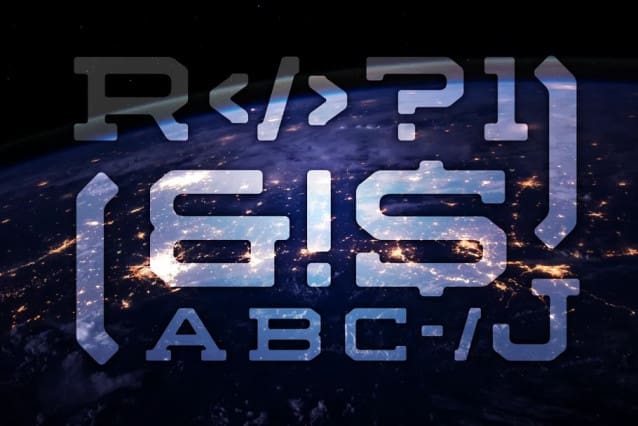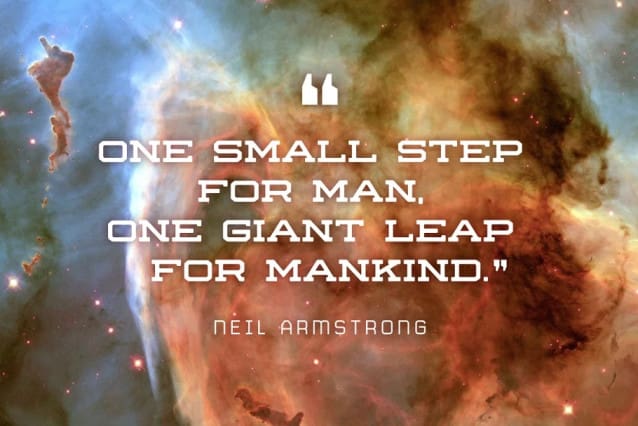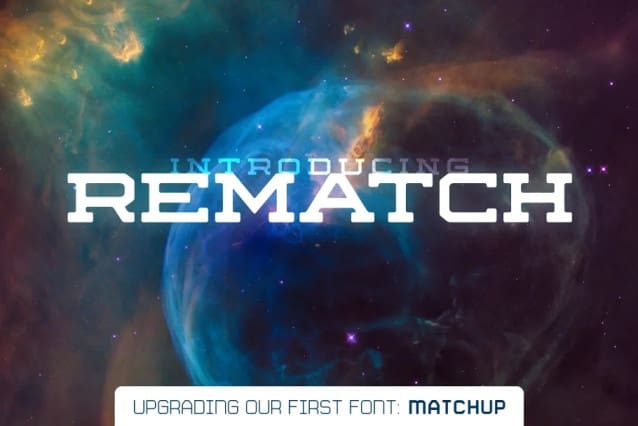
Rematch Font
Rematch Font is an update of the first font Fresh Pressed Fonts created 4 years ago. Matchup was released as a free download which is now been downloaded over 40K times!
It was time for an update. Rematch Font is a more polished and clean typeface. It remains an extended font with slab serifs and a bold weight. This family has two versions, regular and rounded. Rematch will work great as a bold display font that packs a punch. It has some extra flair to go along with the traditional letterforms of a wide slab serif.